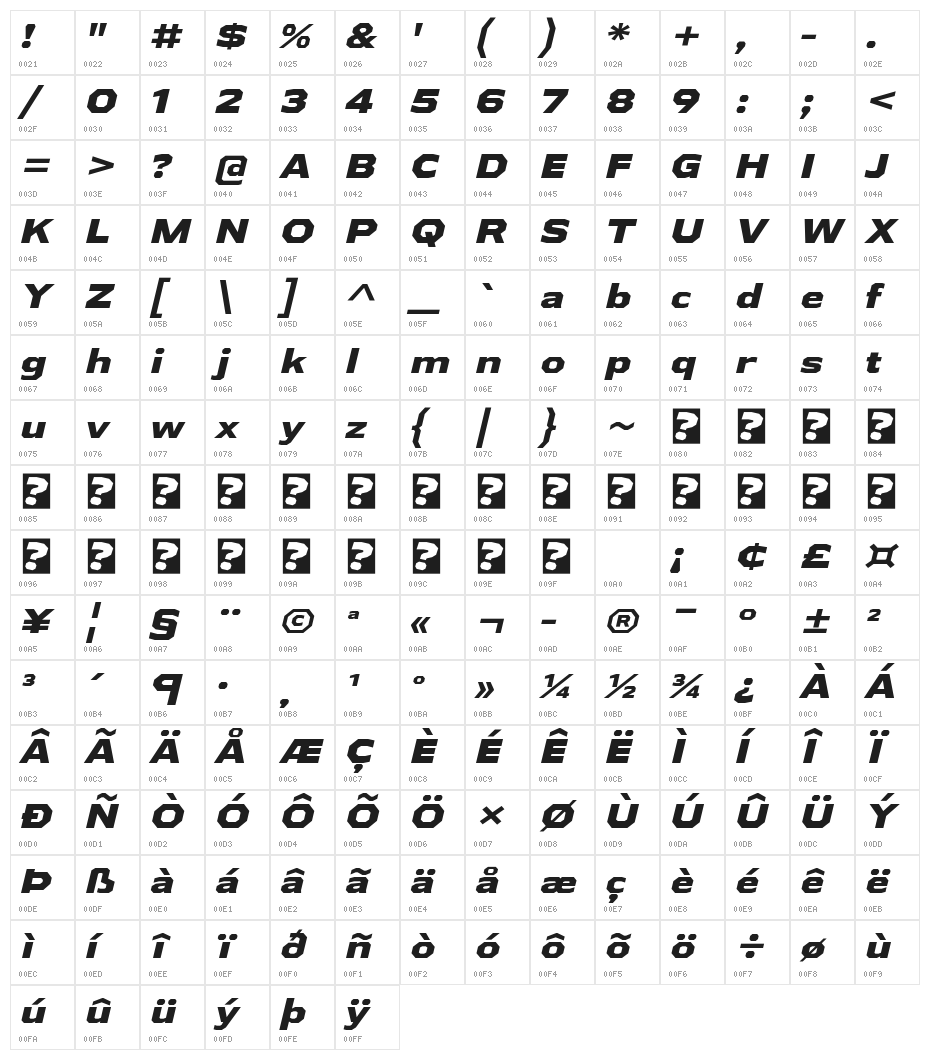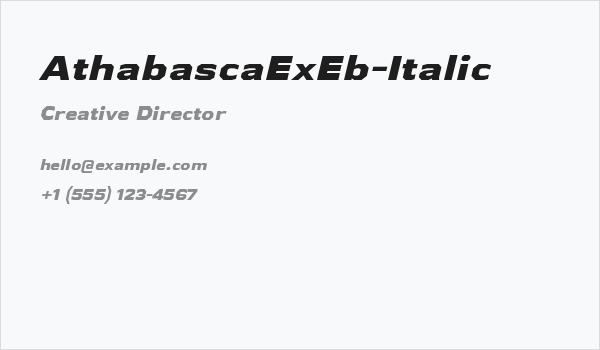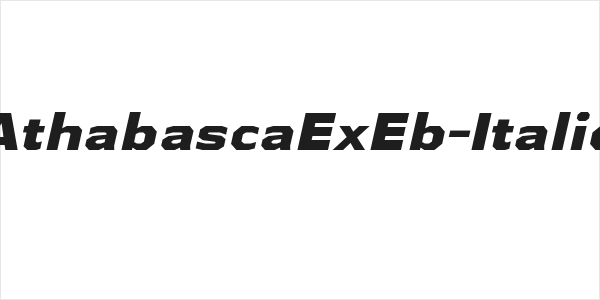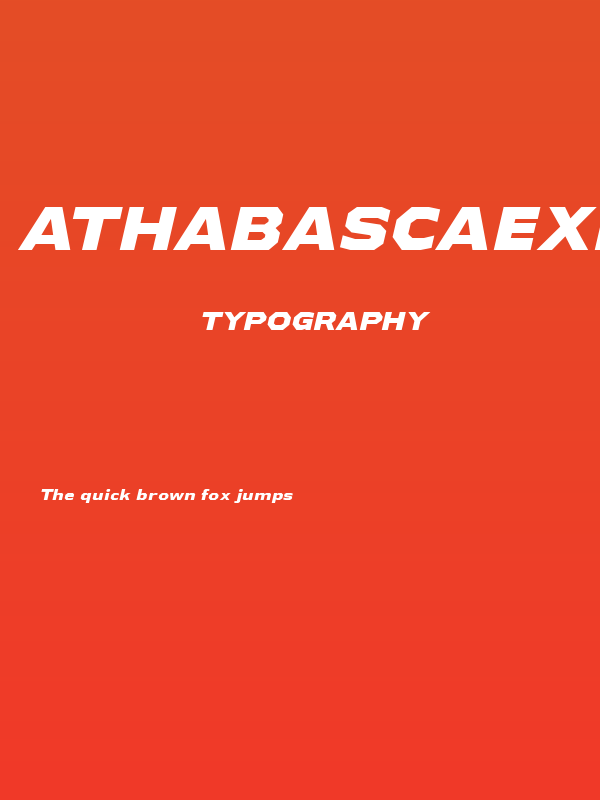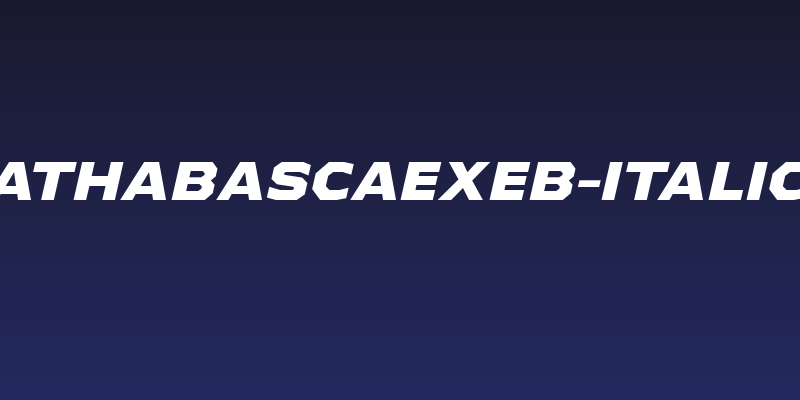
AthabascaExEb-Italic Font
AthabascaExEb-Italic Description
This font features a bold and dynamic style with a distinct italic slant, giving it a sense of motion and energy. The characters are robust and angular, with sharp edges and a strong presence. The uppercase and lowercase letters maintain a consistent weight, providing a cohesive look across the alphabet. Numbers and special characters are equally bold, ensuring readability and impact. The overall design is modern and assertive, making it suitable for projects that require a strong visual statement.
| Proposed Projects | Ideal for sports branding, action-themed posters, and dynamic logo designs. |